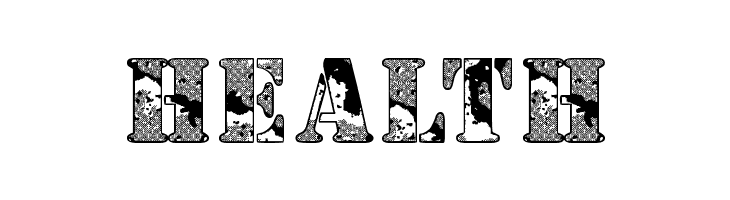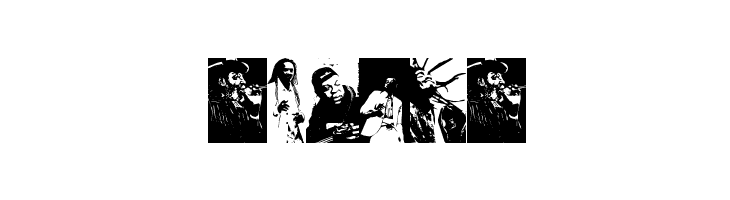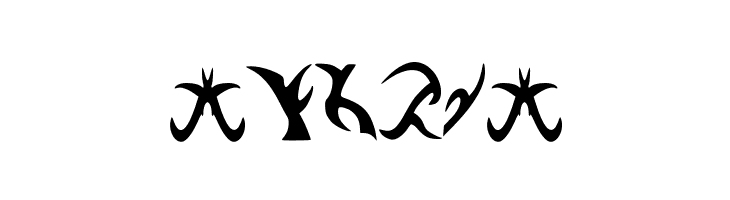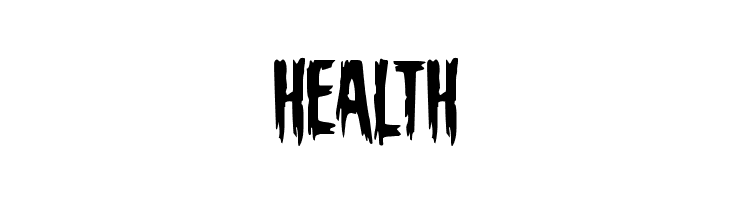
( Anthony Robinson - www.redbubble.com/people/anfa/portfolio )
A bold, decorative font with a desert camouflage pattern.
( Carlos Medina - www.behance.net/InDisaster )
A bold, geometric font with a college-inspired design and modern cut-out details.
( Chanaka Liyanage )
A display font featuring reggae icons within each character.
( Chequered Ink - chequered.ink/ )
A horror-themed font with jagged, brushstroke-style letters.
( Fallkhar - Leon Dzojic - www.creativefabrica.com/designer/fallkhar/ )
A mystical, rune-like font with bold strokes and high contrast.
( Felipe Fenrisvarg - fvmw.tk )
A bold, edgy font with sharp, angular lines and a hand-drawn quality.
A bold, jagged font with a horror-inspired, dramatic style.
A bold, jagged font with a horror-themed, edgy design.
A bold, jagged font with a distressed, eerie style.
A bold, horror-themed font with jagged, distressed edges.